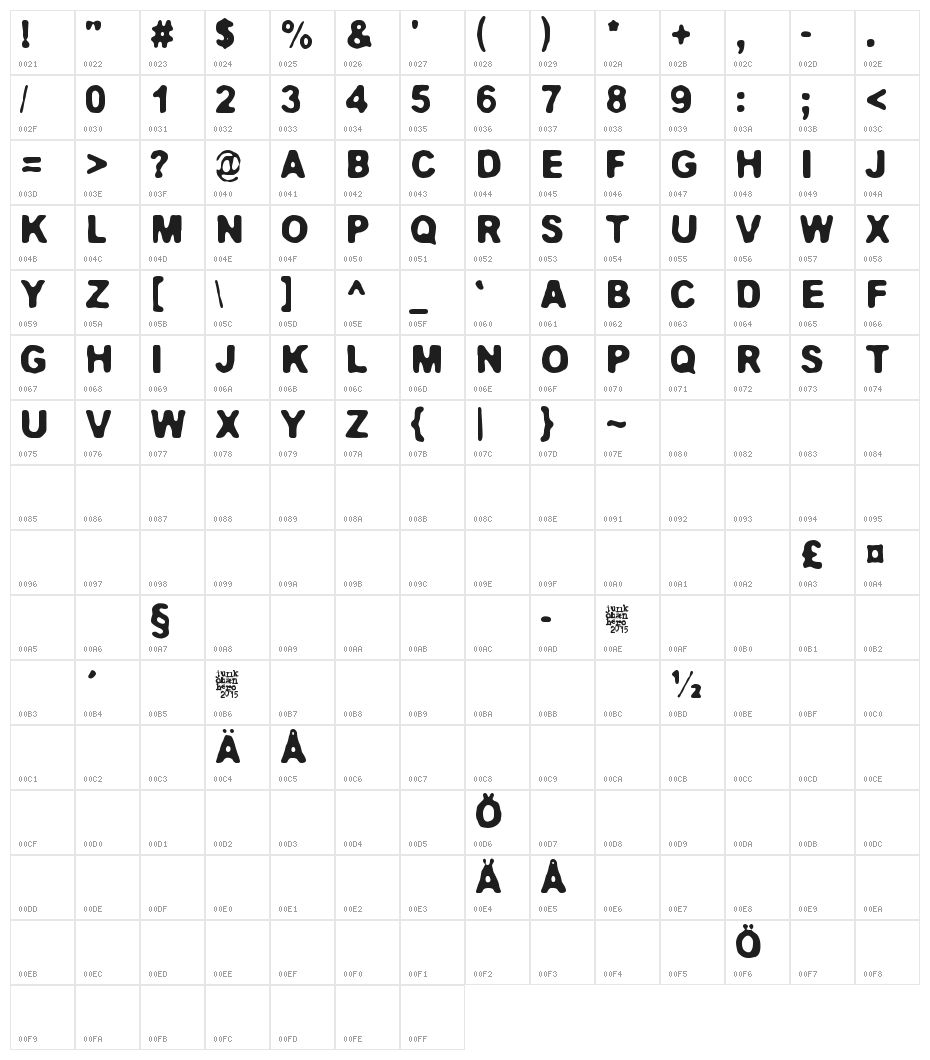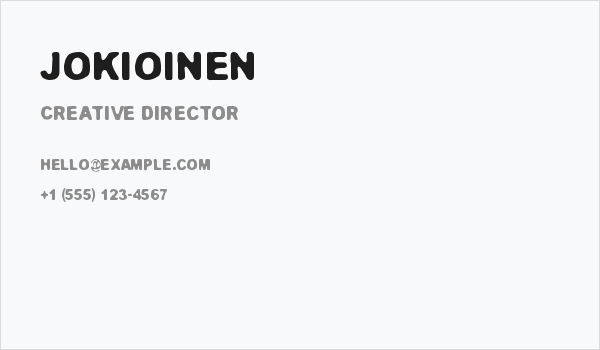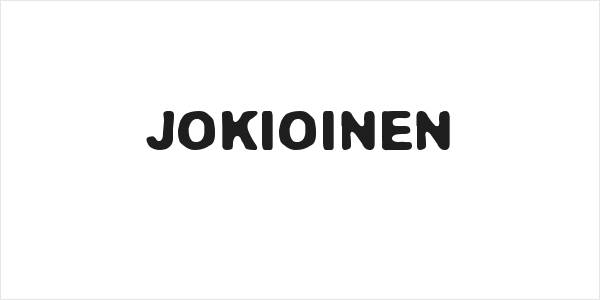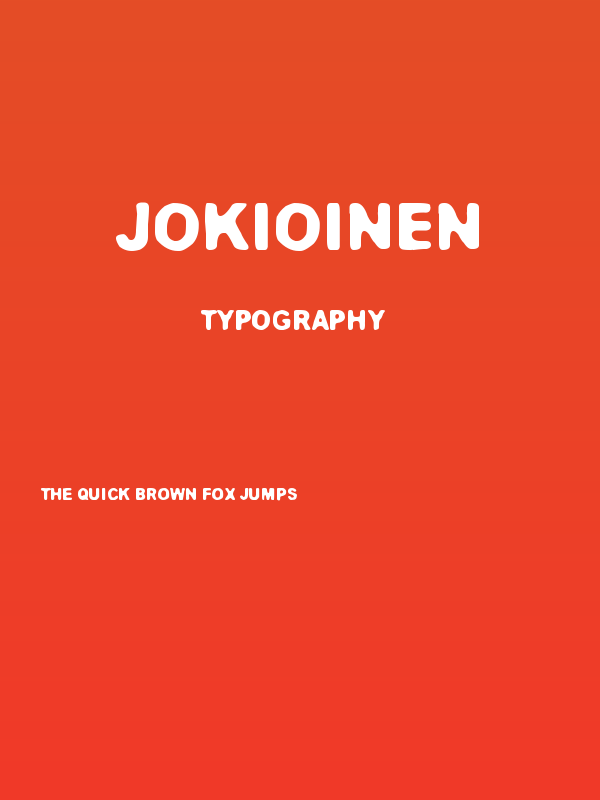
Jokioinen Font
Jokioinen Description
This font features a bold and playful style with rounded edges and a slightly irregular form, giving it a hand-drawn appearance. The characters are thick and substantial, making them highly visible and impactful. The overall look is casual and friendly, suitable for designs that aim to convey warmth and approachability. The numbers and special characters maintain the same playful and bold aesthetic, ensuring consistency across all elements. This font is ideal for projects that require a touch of whimsy and creativity.
| Overall Style | Playful, Casual |
| Proposed Projects | Perfect for children's books, playful branding, posters, and creative social media graphics. |